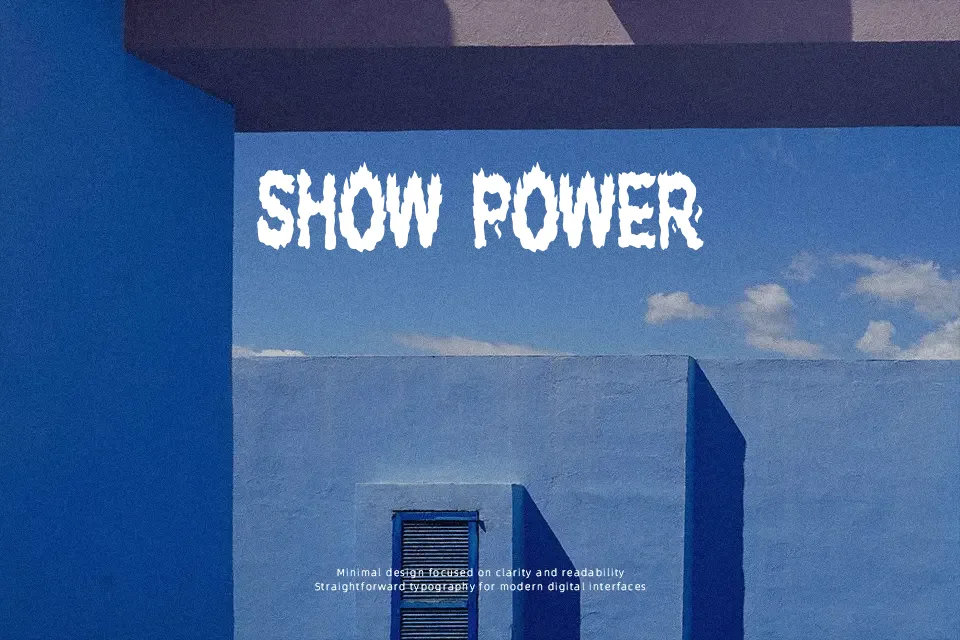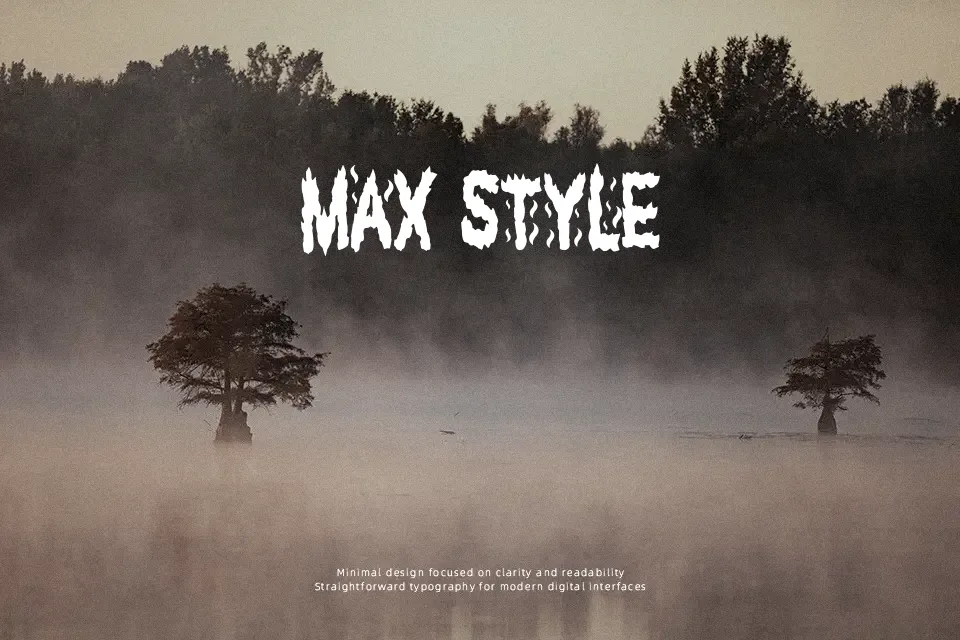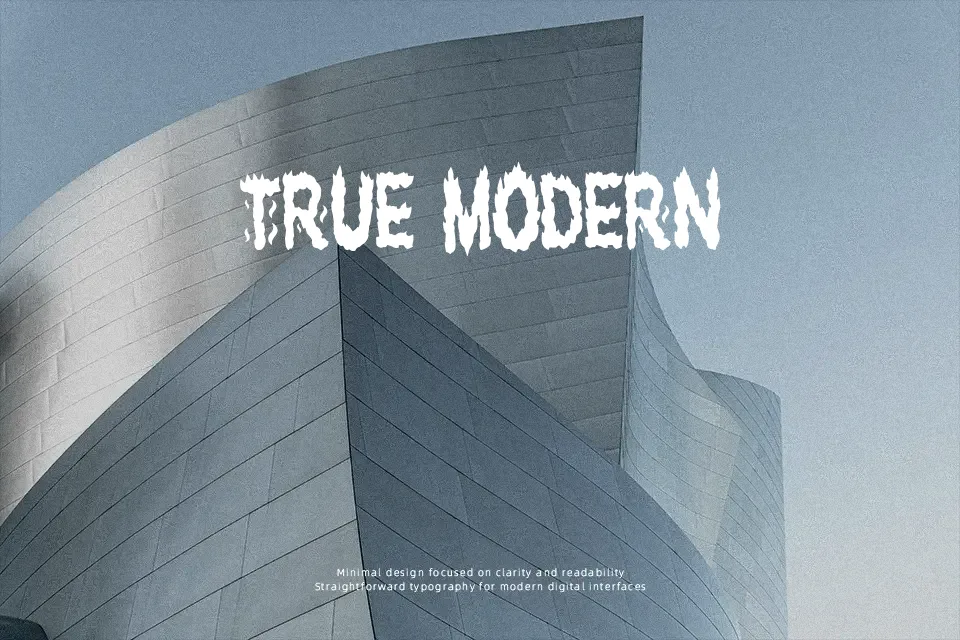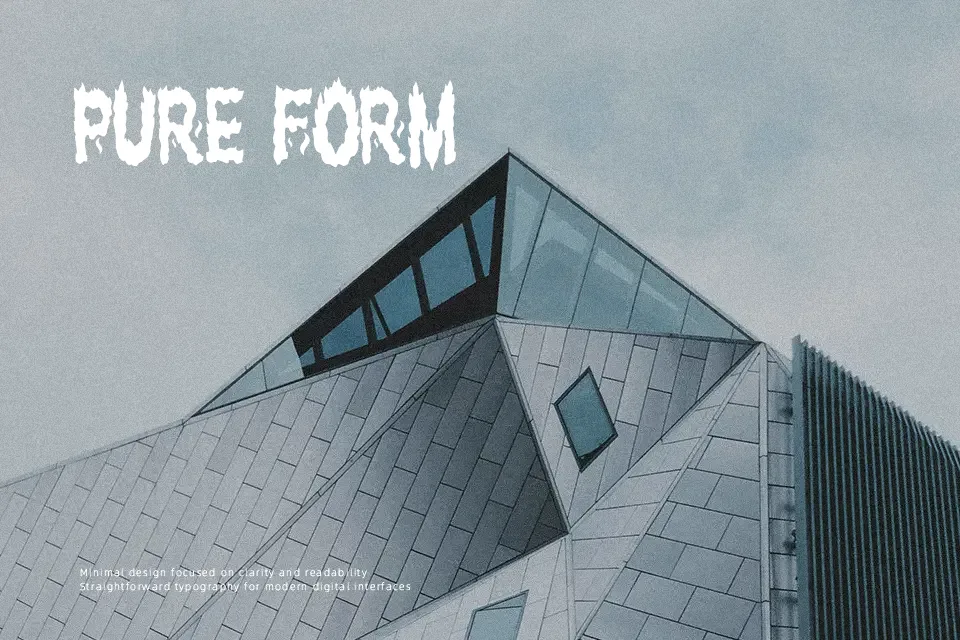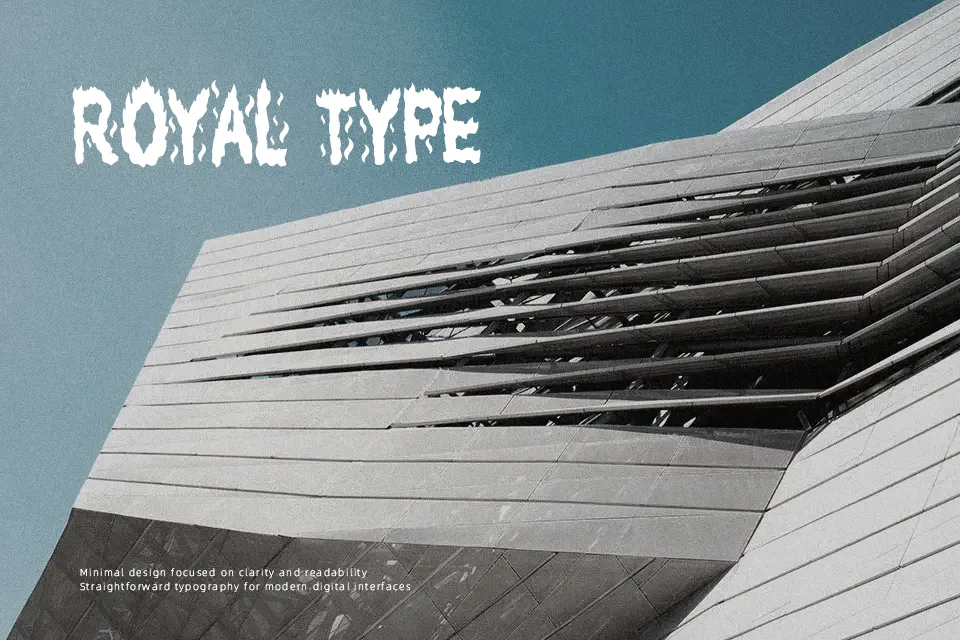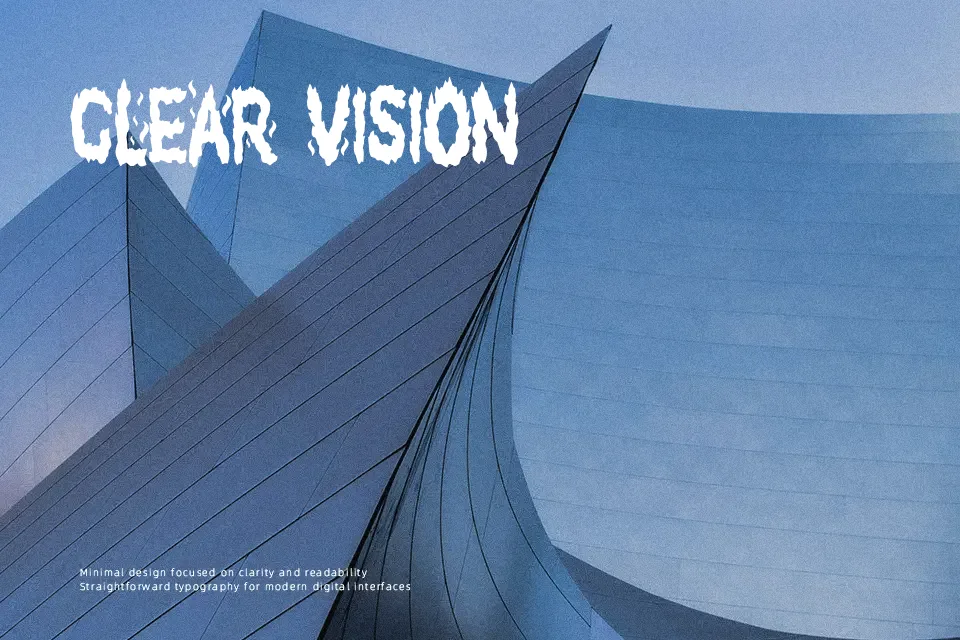
The Fuego Team Font
Built with heavy weights and fiery silhouettes, The Fuego Team Font makes an immediate impression through its dramatic flame tendrils ascending from each character. The letters rely on solid, bold cores surrounded by sharp organic flickers, creating a dense rhythm with tight character spacing. While uppercase forms hold strong visual balance, the intricate contours require generous sizing to keep individual shapes distinct. The typeface performs best in oversized headlines, poster titles, and themed merchandise where raw visual punch matters most. Intricate outer edges fill in at smaller scales, making the design unsuitable for continuous body copy or dense information displays.
Best For: skate apparel graphics, heavy metal concert flyers, Halloween party banners, extreme sports branding
Not Ideal For: continuous body text, mobile interface labels, restaurant ingredient lists, formal business documents
Perfect for branding, headline, and music, with a bold and decorative style.